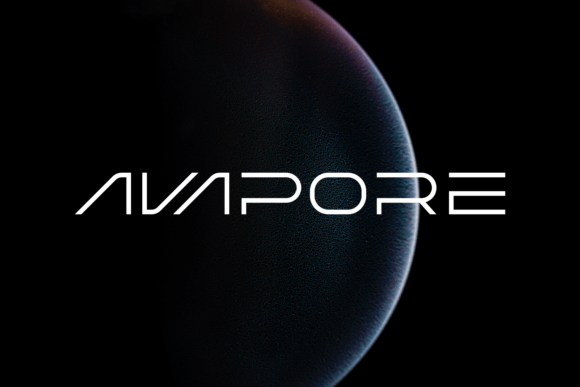
Introducing Avapore Font: The Ultimate Modern and Futuristic Display Font
In the world of typography, fonts play a crucial role in shaping the visual identity of a brand. With the ever-evolving design landscape, it’s essential to stay ahead of the curve with a font that exudes modernity and futurism. This is where Avapore Font comes into play – a cutting-edge display font designed to elevate your branding projects to new heights. In this article, we’ll delve into the features, benefits, and uses of Avapore Font, and explore why it’s the perfect choice for any project that requires a techno, sci-fi look.
What is Avapore Font?
Avapore Font is a modern and futuristic display font that boasts a unique, otherworldly aesthetic. Its sleek lines, geometric shapes, and avant-garde style make it an ideal choice for designers seeking to create a bold, attention-grabbing visual statement. Whether you’re working on a logo, t-shirt printing, or creative products, Avapore Font is the perfect tool to add a touch of futurism to your design.
Key Features of Avapore Font
- Modern and Futuristic Design: Avapore Font features a cutting-edge design that screams modernity and futurism. Its sleek lines and geometric shapes create a visually stunning effect that’s sure to captivate your audience.
- Highly Versatile: Avapore Font is perfect for a wide range of design projects, from logos and t-shirt printing to creative products and more.
- Easy to Read: Despite its futuristic design, Avapore Font is surprisingly easy to read, making it an excellent choice for headlines, titles, and short texts.
- Customizable: Avapore Font comes with a range of customization options, allowing you to tweak the design to suit your specific needs.
Benefits of Using Avapore Font
So, why choose Avapore Font for your design project? Here are just a few benefits of using this incredible font:
- Stand Out from the Crowd: Avapore Font’s unique design ensures that your project stands out from the crowd, grabbing the attention of your audience and setting you apart from the competition.
- Instant Credibility: The modern and futuristic design of Avapore Font lends an air of credibility and sophistication to your project, perfect for brands seeking to establish themselves as industry leaders.
- Flexibility: Avapore Font is highly versatile, making it suitable for a wide range of design projects and applications.
Use Cases for Avapore Font
Avapore Font is perfect for any project that requires a techno, sci-fi look. Here are some use cases to get you started:
- Logo Design: Create a bold, attention-grabbing logo that sets your brand apart from the competition.
- T-Shirt Printing: Add a touch of futurism to your t-shirt designs with Avapore Font’s sleek, modern aesthetic.
- Creative Products: Use Avapore Font to create stunning designs for creative products such as posters, flyers, and brochures.
- Digital Media: Avapore Font is perfect for digital media, including video game design, mobile apps, and website headers.
Tips for Using Avapore Font
To get the most out of Avapore Font, here are some tips to keep in mind:
- Use it Sparingly: Avapore Font’s bold design makes it perfect for headlines and titles. Use it sparingly to create a visual impact.
- Experiment with Colors: Avapore Font looks stunning in a range of colors. Experiment with different hues to find the perfect combination for your design.
- Pair it with Other Fonts: Avapore Font pairs well with other fonts. Experiment with different combinations to create a unique visual style.
In conclusion, Avapore Font is a modern and futuristic display font that’s perfect for any branding project that requires a techno, sci-fi look. Its sleek design, versatility, and ease of use make it an excellent choice for designers seeking to create a bold, attention-grabbing visual statement. With Avapore Font, you can elevate your design project to new heights and establish your brand as a leader in your industry.
- What is Avapore Font?: Avapore Font is a modern and futuristic display font designed for use in branding projects.